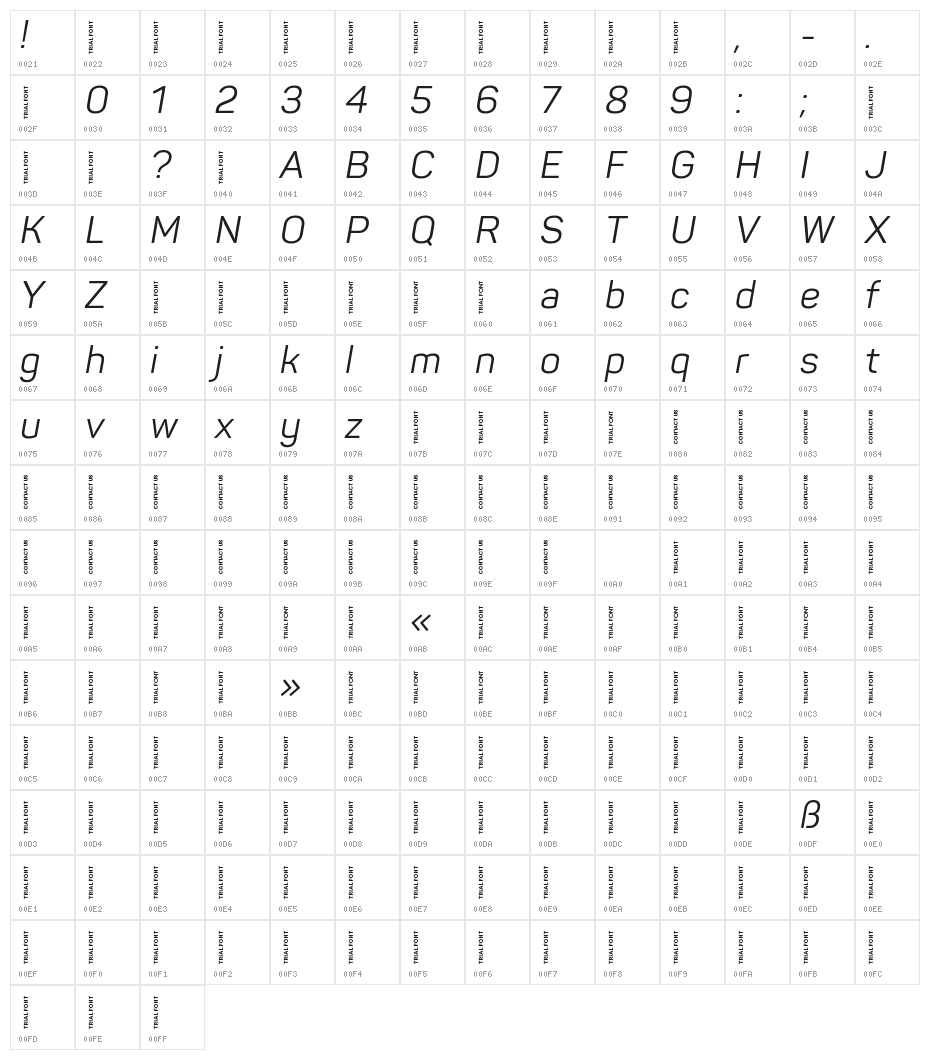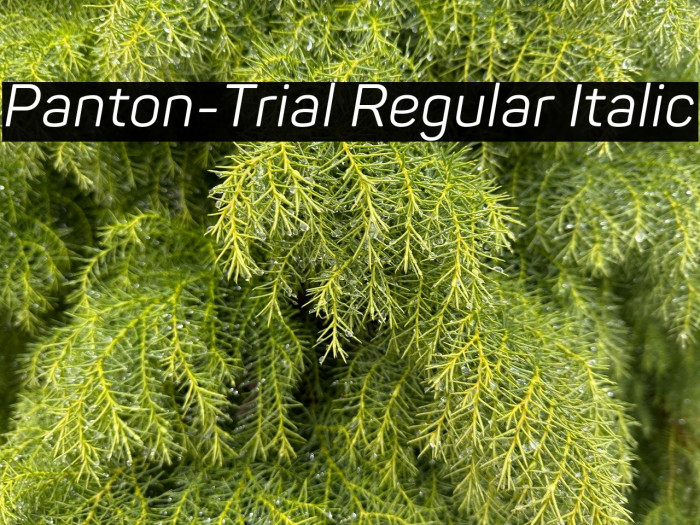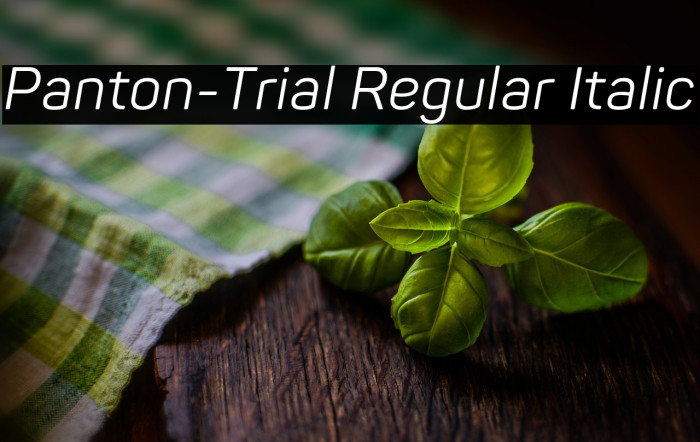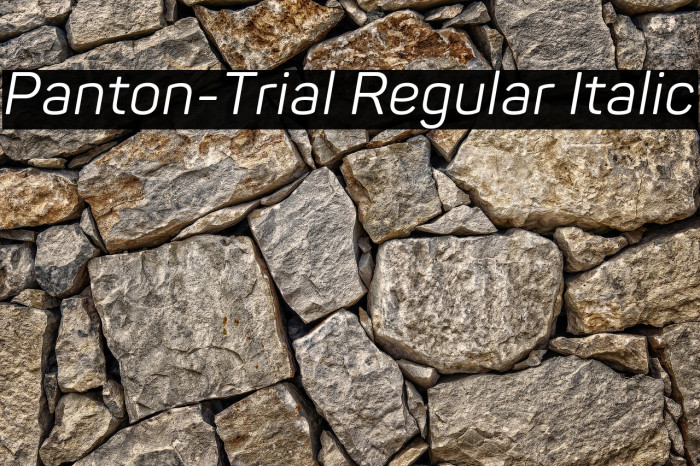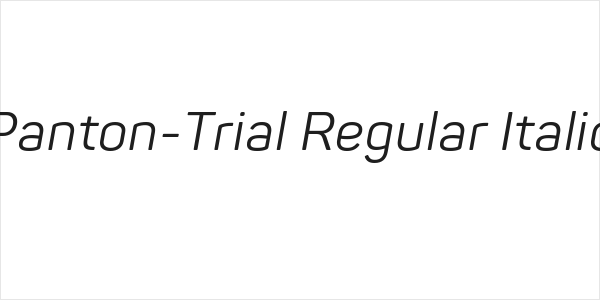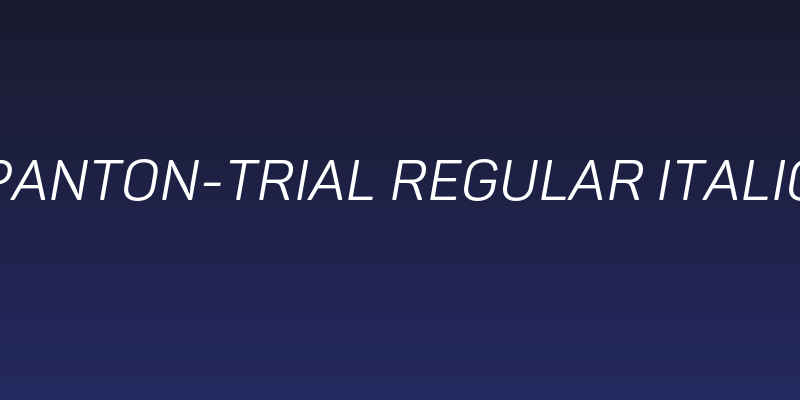
Panton-Trial Regular Italic Font
Panton-Trial Regular Italic Description
This font features a clean and modern sans-serif design with a slight italic slant, giving it a dynamic and contemporary feel. The characters are well-proportioned and maintain a consistent stroke width, contributing to a sleek and professional appearance. The rounded edges of the letters add a touch of softness, making it versatile for various applications. The numerals are clear and easily distinguishable, ensuring readability in both digital and print formats. Special characters are designed with the same attention to detail, ensuring a cohesive look across all elements.